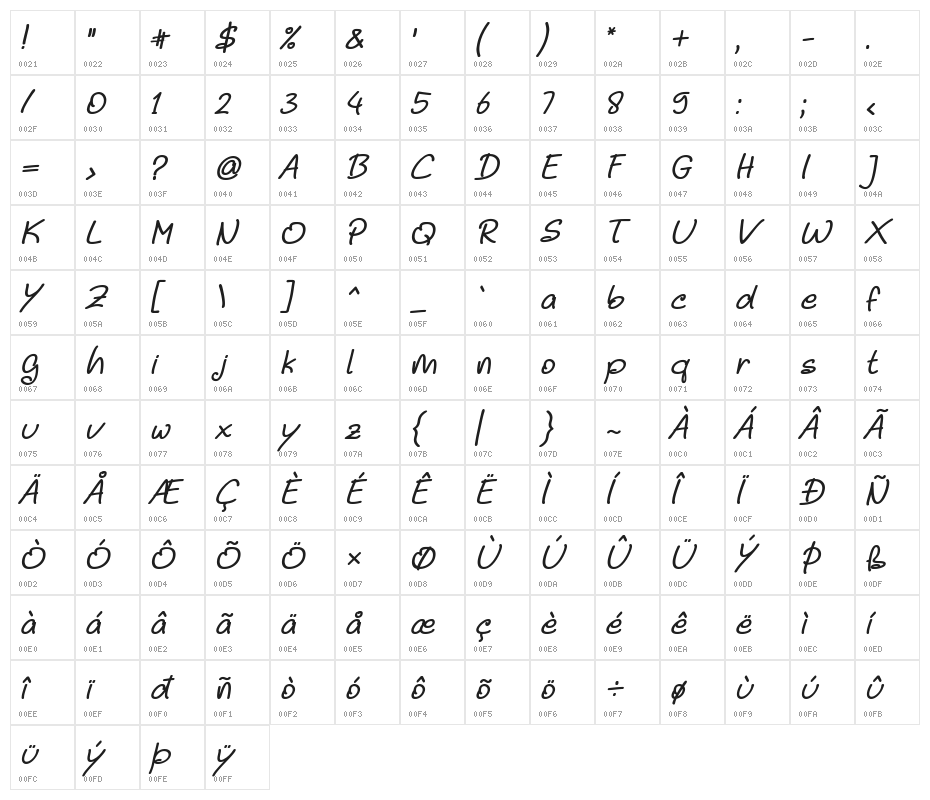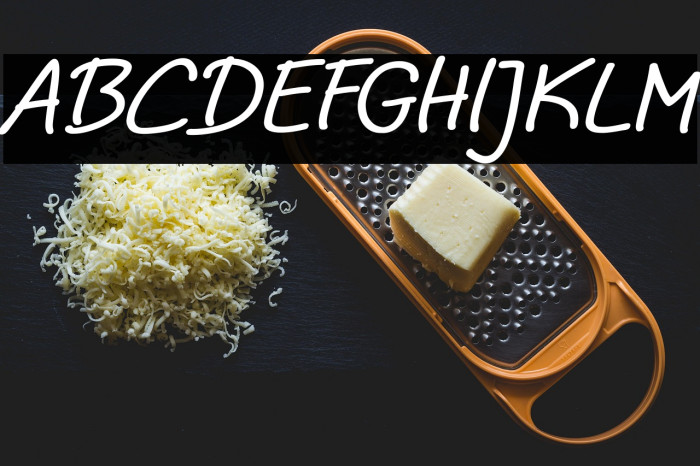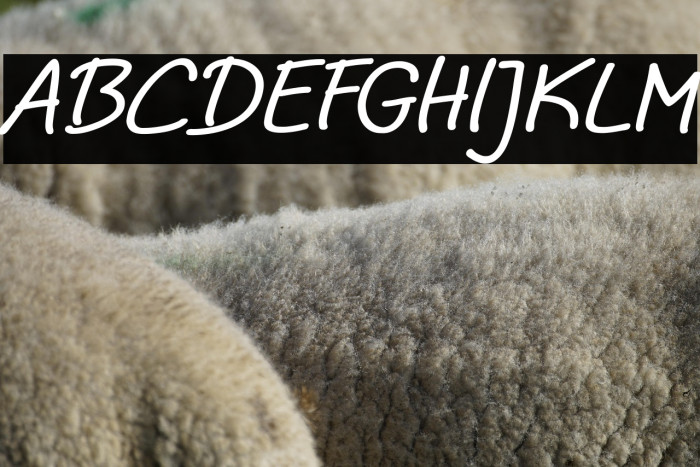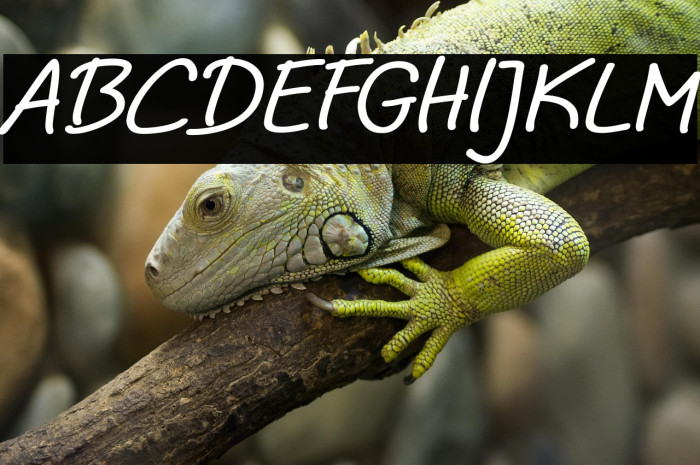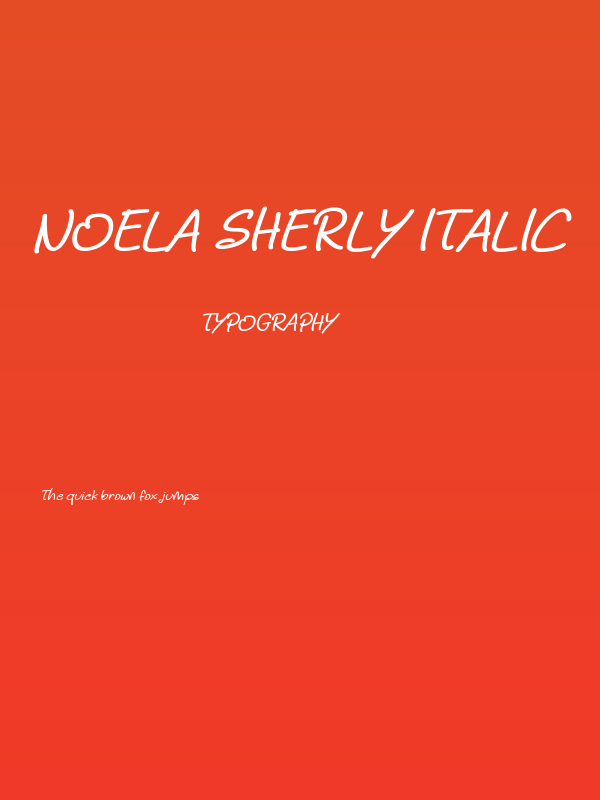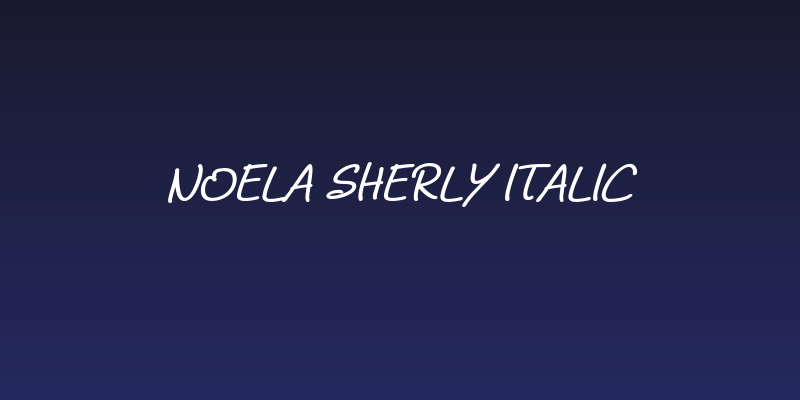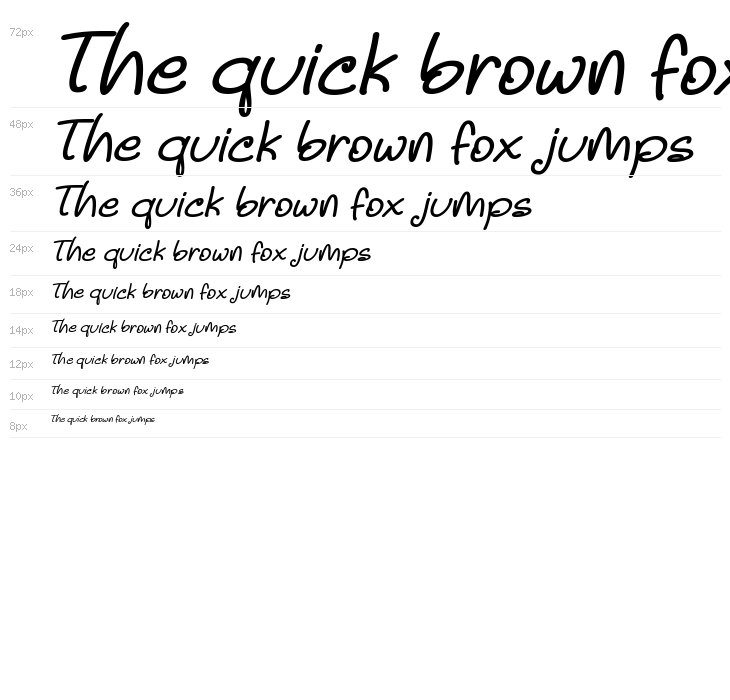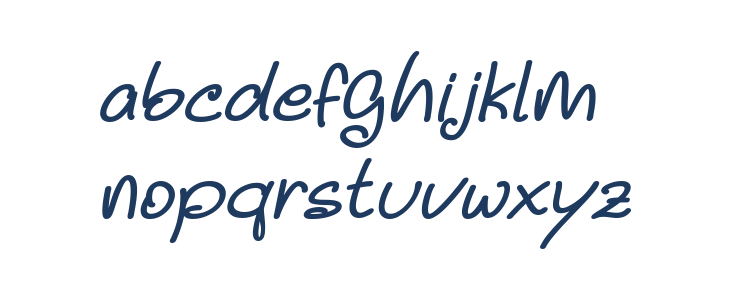
Noela Sherly Italic Font
Noela Sherly Italic Description
This font features a lively and dynamic script style with a handwritten appearance. The letters are fluid and connected, giving a sense of motion and elegance. The uppercase letters are bold and slightly slanted, while the lowercase letters maintain a consistent flow with rounded edges. Numbers and special characters are designed to match the overall cursive style, ensuring a cohesive look. The font's playful yet sophisticated design makes it suitable for a variety of creative applications.
| Proposed Projects | Ideal for wedding invitations, greeting cards, branding projects, and social media graphics. |